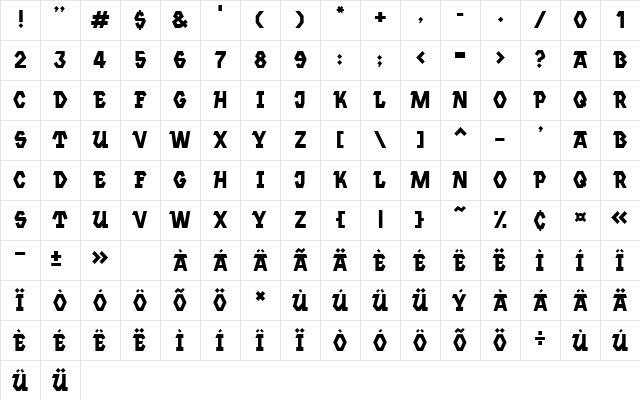
Jannsen Regular
Foundry: Keidi Rehe
Designer: Keidi Rehe
Design Context for Jannsen
Jannsen is a composed and adaptable typeface that performs quietly and consistently across a wide range of design contexts.